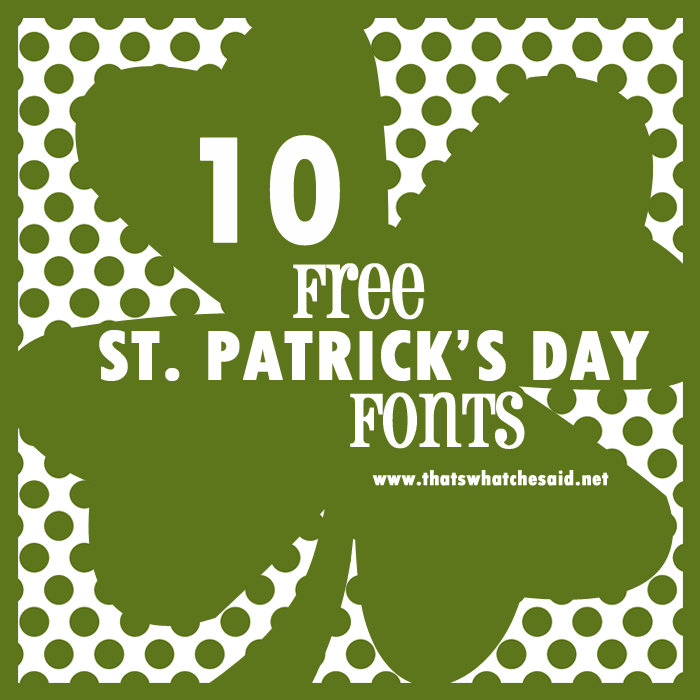
I am sharing 10 Free St. Patrick’s Day fonts, but before we get started let’s get this out of the way:
There, now that that is taken care of we can move on! Seriously, I love them. Fonts are to blogging as the music is to movie storylines. It can totally make or brake the mood you are trying to accomplish! I love using them in printables, invitations, for T-Shirt graphics, home décor…just about anything! I love them and I know I am not alone so I am excited to share these with the rest of my typography loving friends!
Patrick | Leprechaun Hats | LMS Irish Beer | Irish Unci Alphabet | Celtic | KR Belated St. Patrick’s | Kells
| KR Bits O’Shea | KG Luck of the Irish | Clover Things